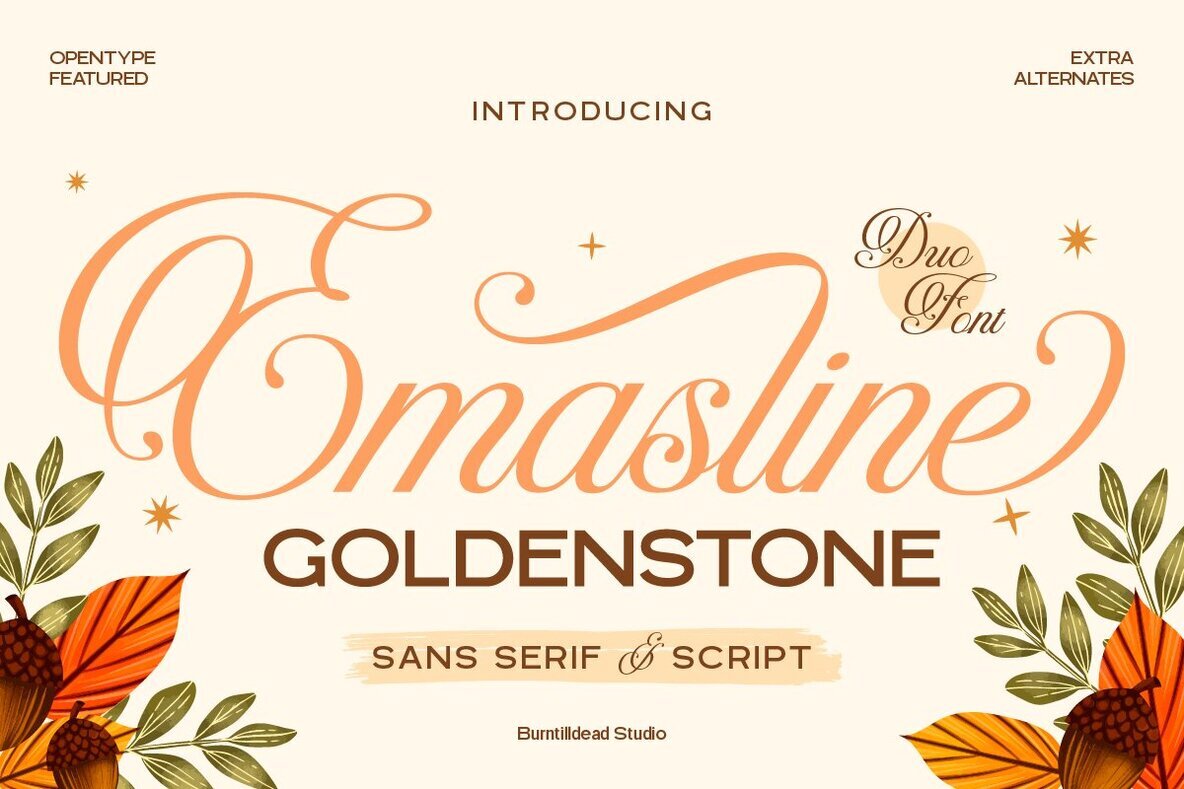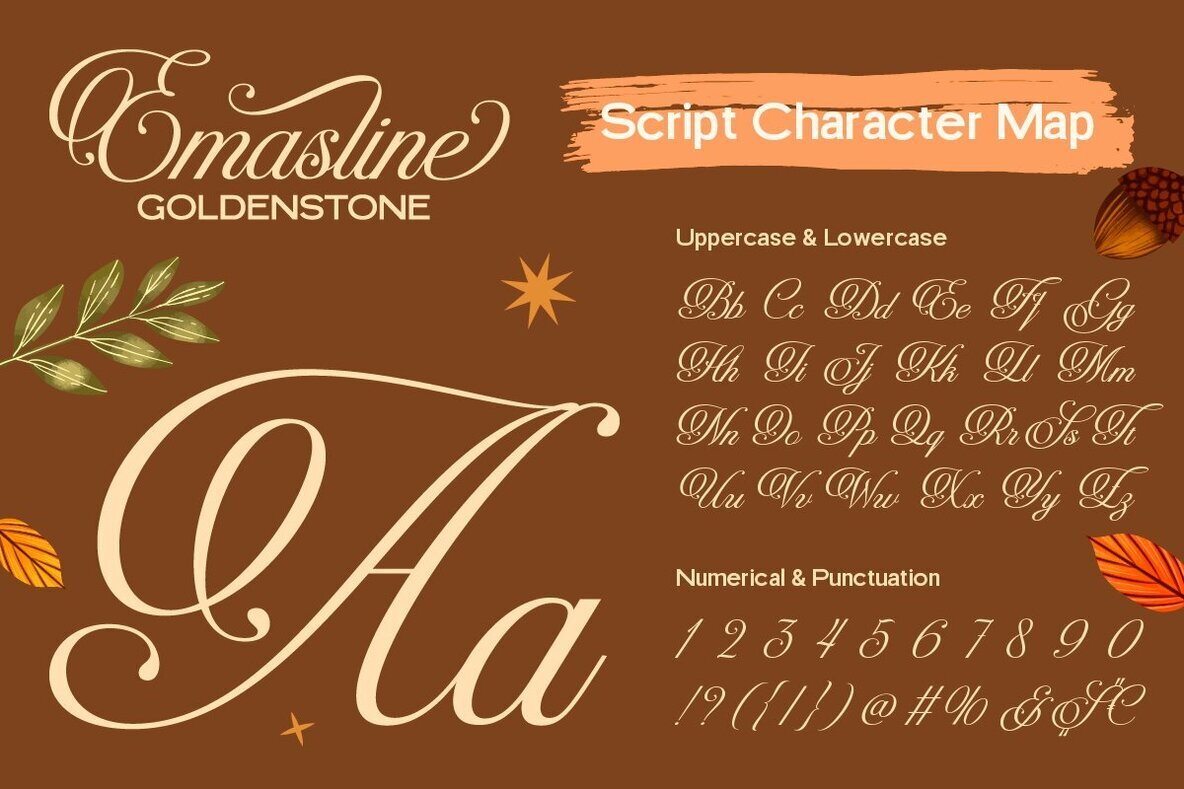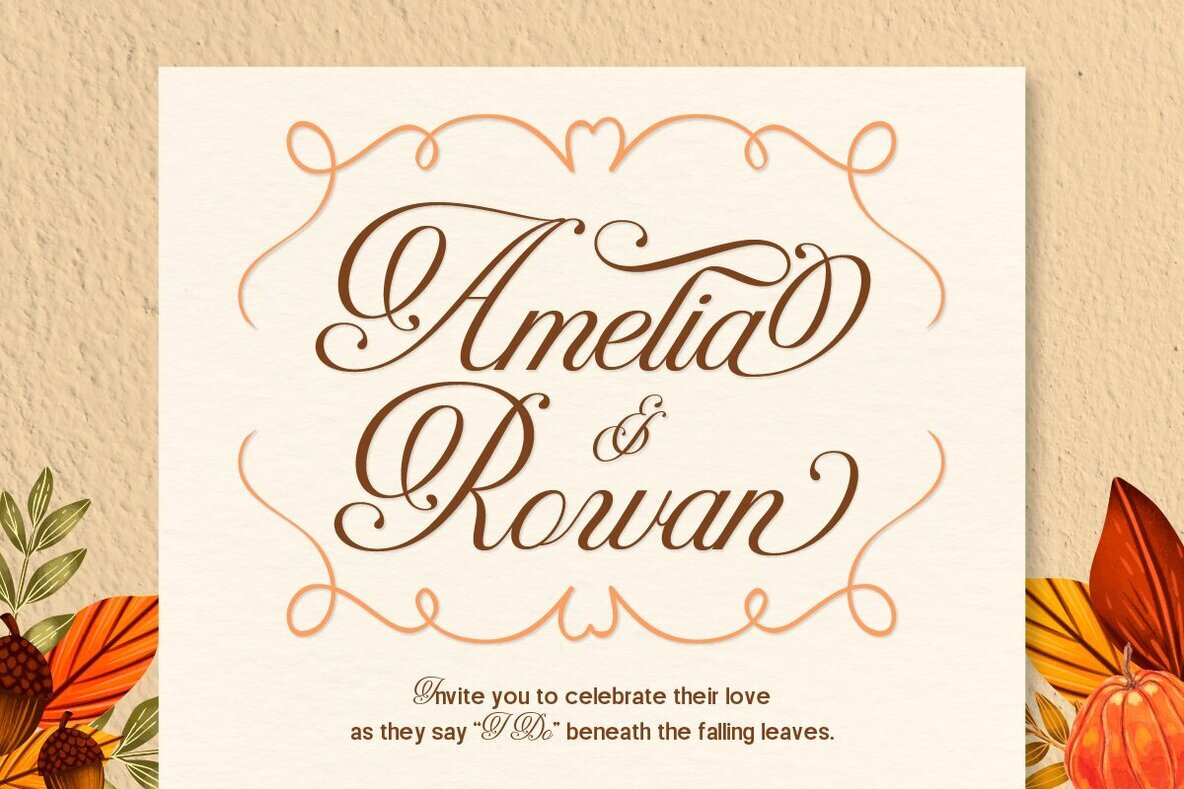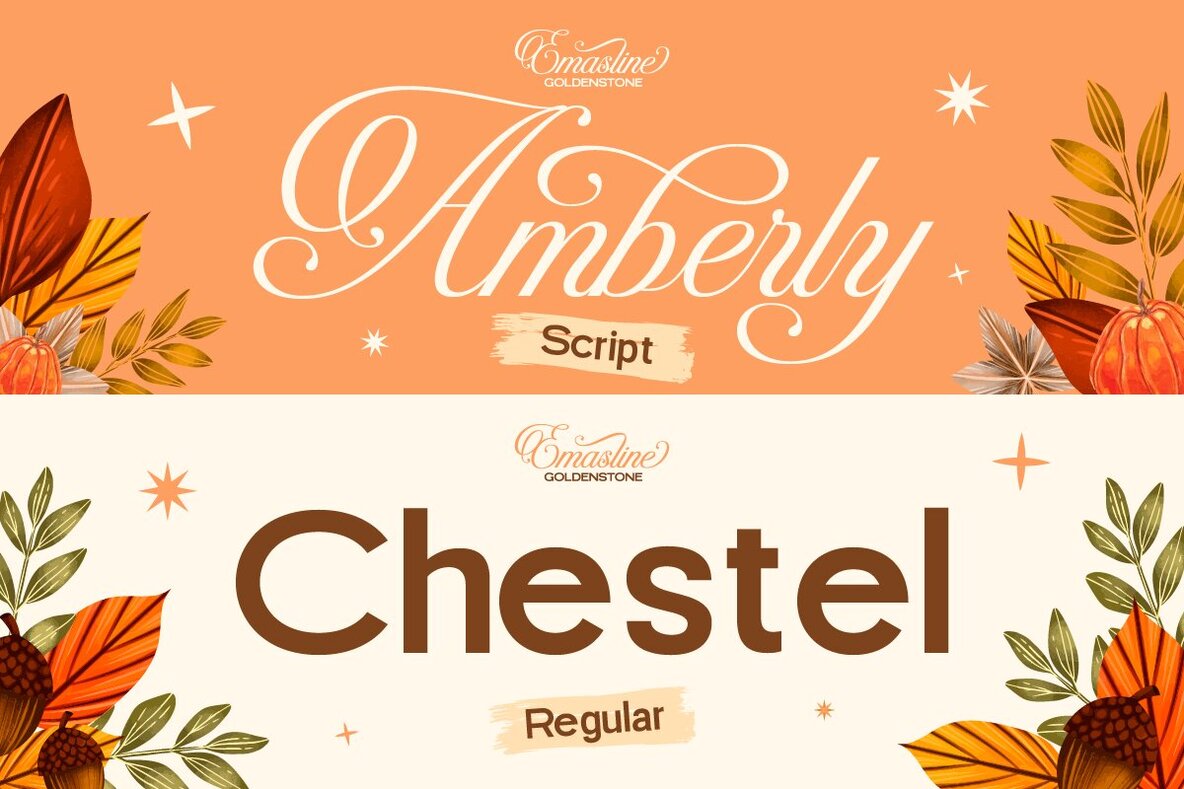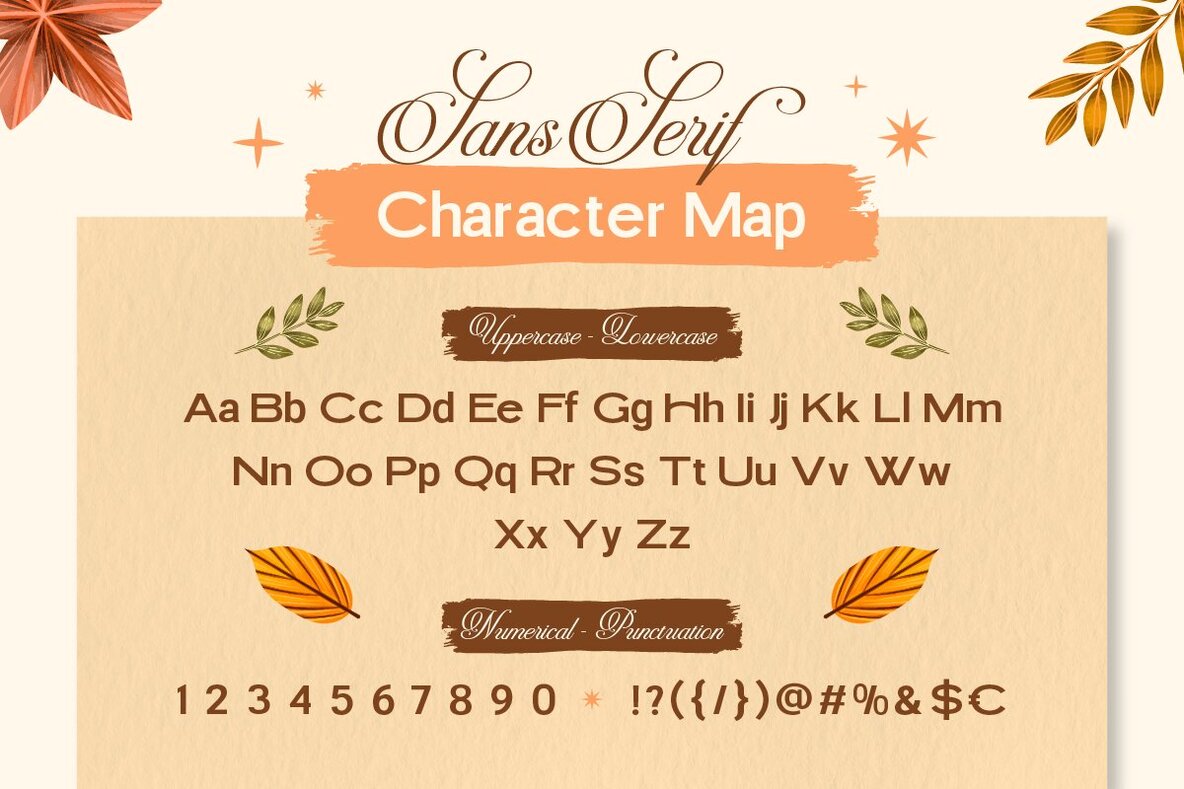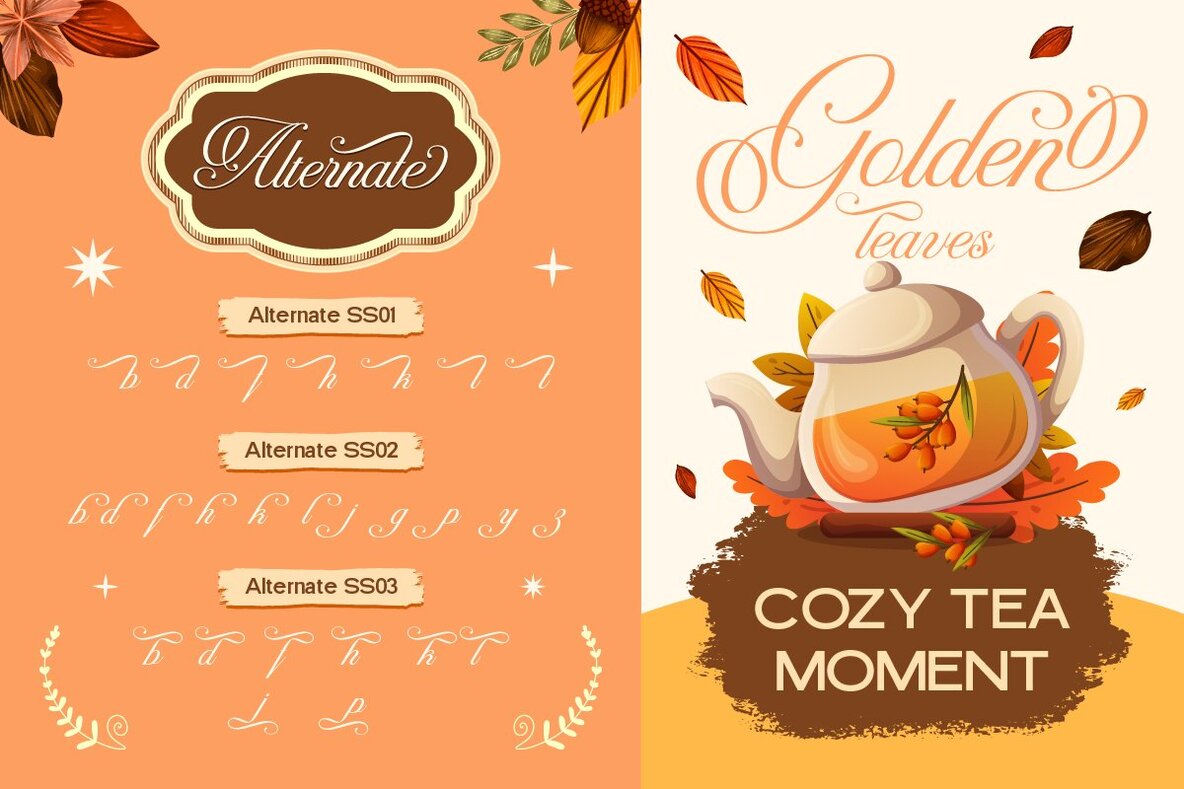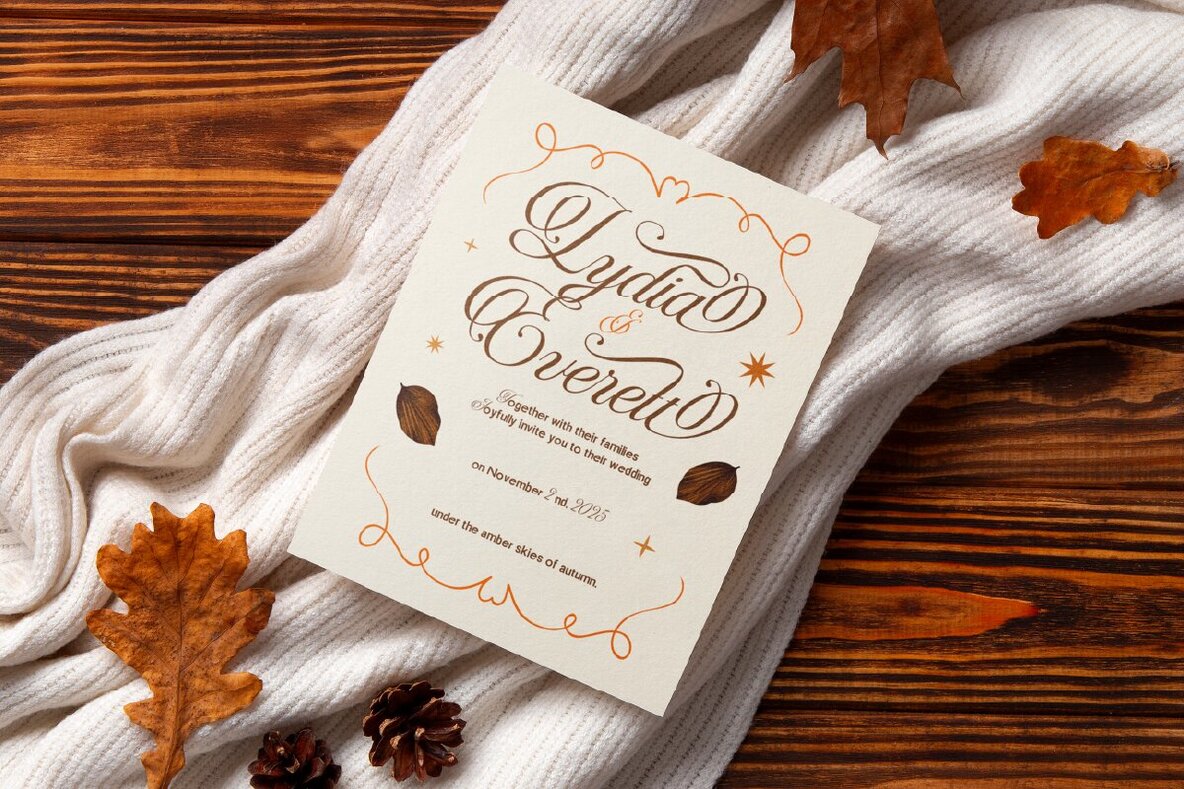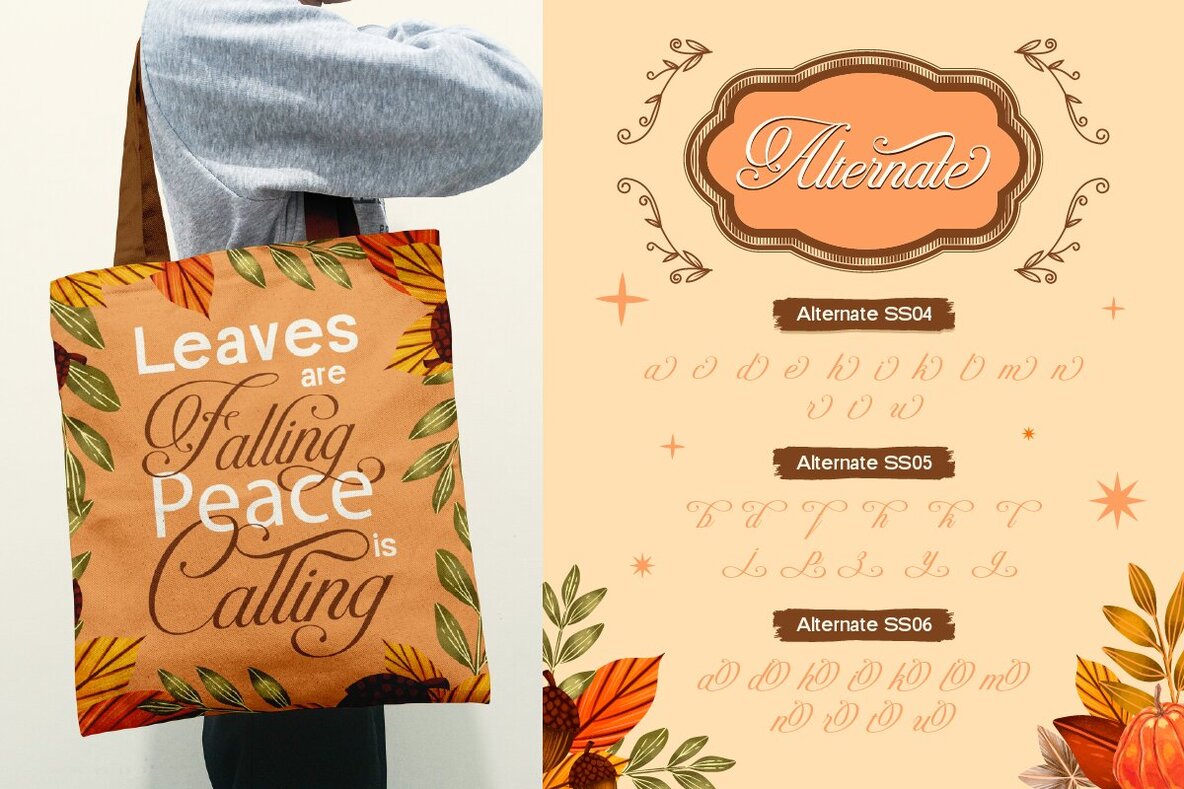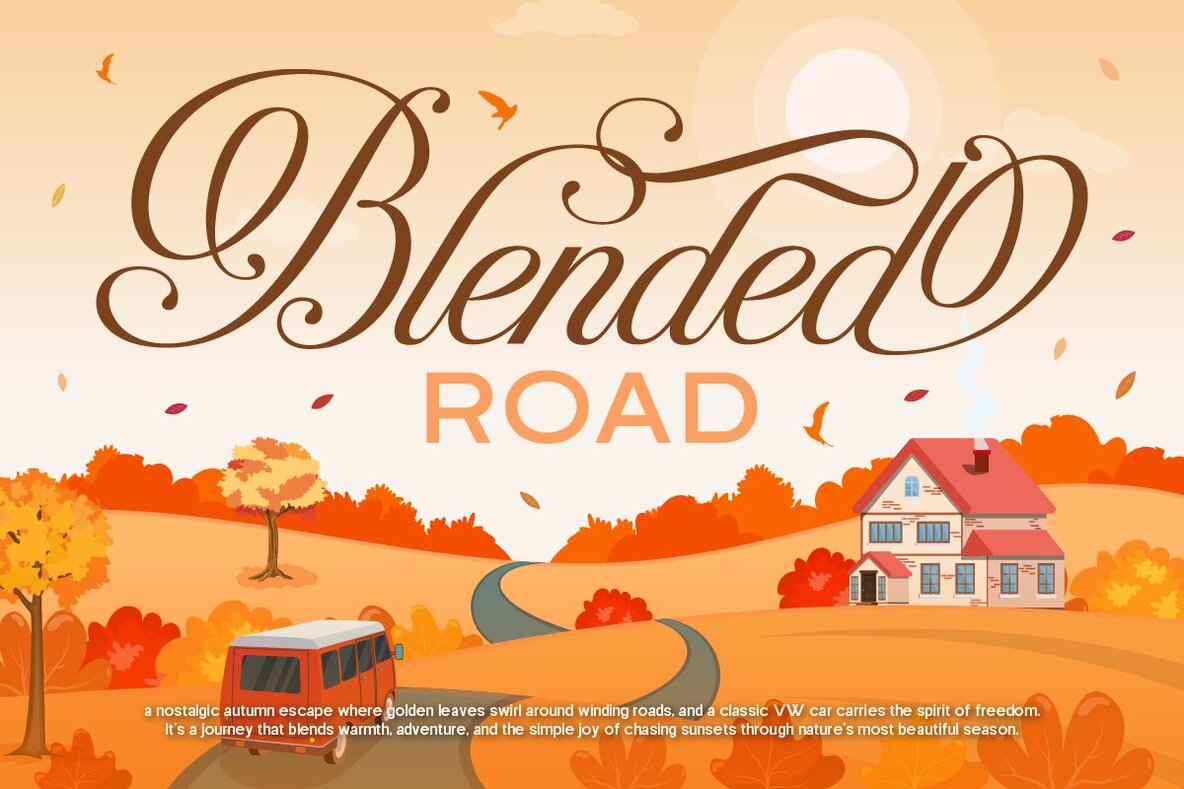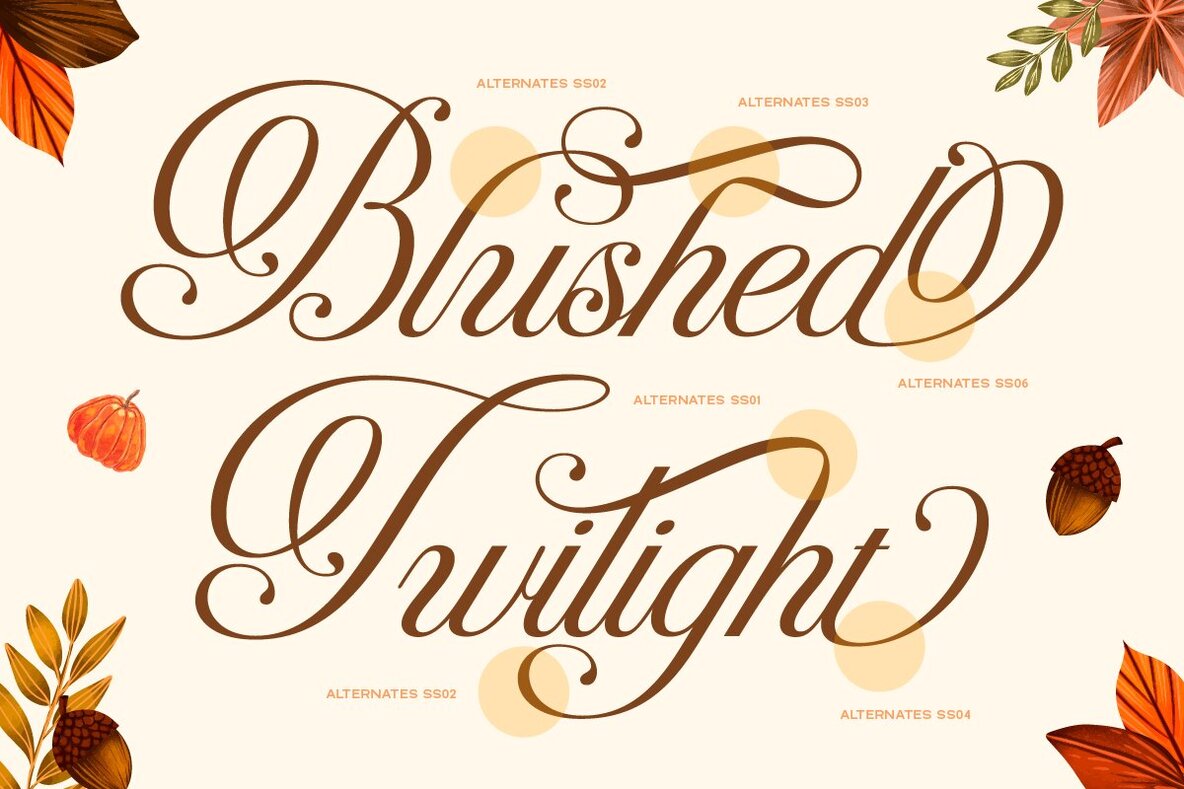
Emasline Goldenstone Font
Emasline Goldenstone Regular
Emasline Goldenstone Script
Emasline Goldenstone is a delightful duo font that captures the essence of cozy autumn days. Seamlessly blending a graceful script with a modern sans serif, this typeface lends itself to a variety of projects, from wedding invitations to fall branding initiatives. Its design exudes the charm of the golden hour, adding a touch of warmth to any creative endeavor. Each character in Emasline Goldenstone flows as elegantly as falling leaves, enhanced by its thoughtful alternates and swashes. It's the perfect choice for Thanksgiving menus, greeting cards, and packaging for artisanal goods, infusing them with nostalgic elegance. Despite its classy design, the font retains a friendly, approachable feel, reminiscent of autumn's rich hues.Emasline Goldenstone: A Duo Font for Seasonal Warmth